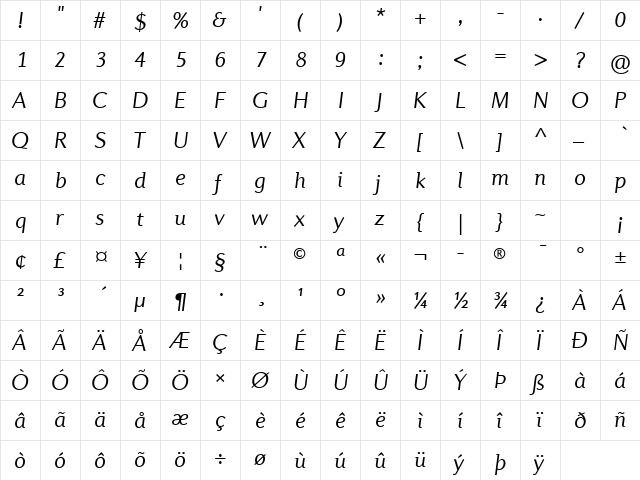
Diverda Sans Com Light Italic Font Preview
| Foundry | Linotype GmbH |
| Designer | Daniel Lanz |
Design Context for Diverda Sans Com Typeface
Diverda Sans Com takes a measured approach to typography — its balanced proportions and neutral character make it a reliable workhorse for both digital and print work. The slanted form adds forward momentum and visual energy. Its slender proportions lend an understated elegance to any composition.
Pro Tip: Try Diverda Sans Com for annotation and caption copy alongside an upright companion — the contrast in angle creates a dynamic but ordered typographic system.